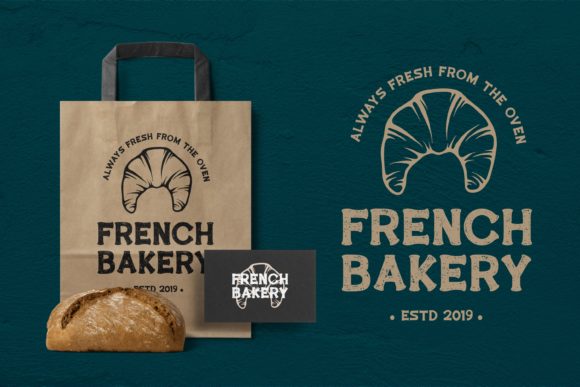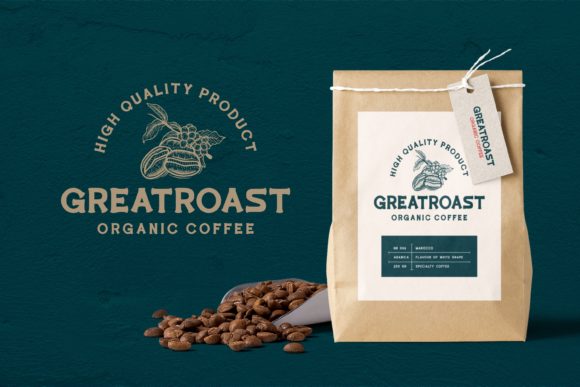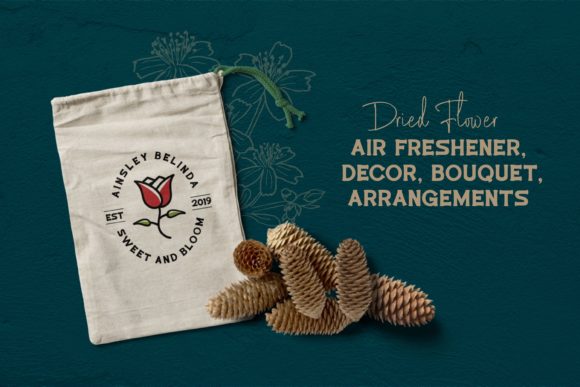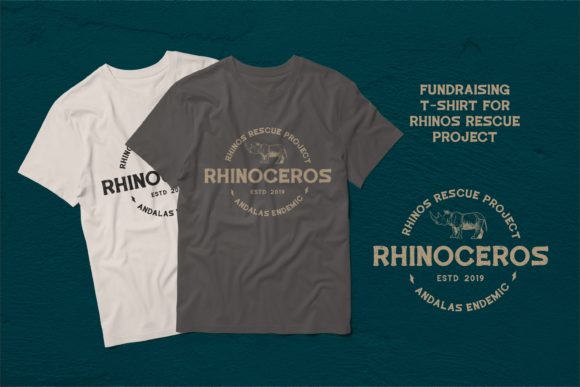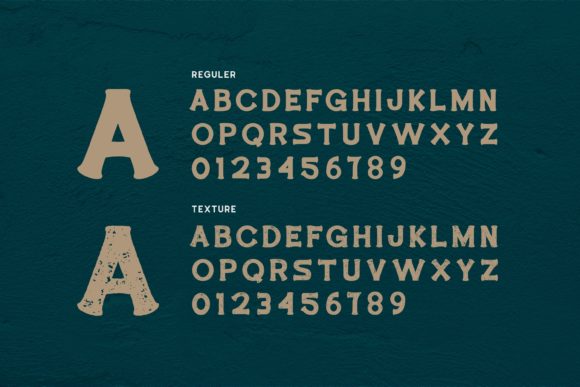
Unleash the Spook: Elevate Your Designs with Graveyard Font
Are you looking for a font that will add a touch of spookiness and vintage charm to your design projects? Look no further than Graveyard Font, a grungy and eye-catching display font that’s sure to make your designs stand out from the crowd. With its unique blend of eerie and nostalgic elements, Graveyard Font is the perfect choice for designers and crafters who want to add a bit of macabre magic to their work.
The Perfect Font for Spooky Designs
Graveyard Font is a display font that’s specifically designed to add a touch of spookiness to your designs. Its grungy texture and vintage feel evoke the creepy, abandoned atmosphere of an old graveyard, making it perfect for Halloween-themed designs, horror movie posters, and other spooky projects. But Graveyard Font is more than just a one-trick pony – its versatility and style make it suitable for a wide range of design applications, from bold headlines to decorative titles and captions.
Key Features of Graveyard Font
- Unique and eye-catching design: Graveyard Font features a distinctive, grungy texture that’s sure to grab attention and add a touch of spookiness to your designs.
- Vintage feel: With its distressed and worn look, Graveyard Font has a nostalgic, vintage feel that’s perfect for designs that require a retro or antique look.
- High-quality and versatile: Graveyard Font is a high-quality font that’s suitable for a wide range of design applications, from digital designs to print materials.
How to Use Graveyard Font in Your Designs
Graveyard Font is a versatile font that can be used in a variety of design applications. Here are a few ideas to get you started:
- Halloween-themed designs: Graveyard Font is perfect for Halloween-themed designs, such as party invitations, decorations, and social media graphics.
- Horror movie posters: Add a touch of spookiness to your horror movie posters with Graveyard Font, which is sure to grab attention and set the tone for a thrilling movie experience.
- Vintage-style designs: Graveyard Font’s vintage feel makes it perfect for designs that require a retro or antique look, such as old-fashioned advertisements, logos, and branding materials.
- Crafting and DIY projects: Graveyard Font is also suitable for crafting and DIY projects, such as handmade cards, scrapbooking, and other paper crafts.
Tips for Getting the Most Out of Graveyard Font
Here are a few tips for getting the most out of Graveyard Font:
- Experiment with different colors and textures: Graveyard Font looks great in a variety of colors and textures, so don’t be afraid to experiment and find the perfect combination for your design.
- Use it sparingly: Graveyard Font is a bold and eye-catching font, so use it sparingly to add emphasis and visual interest to your designs.
- Pair it with other fonts: Graveyard Font pairs well with other fonts, such as sans-serif fonts and script fonts, so don’t be afraid to experiment with different font combinations.